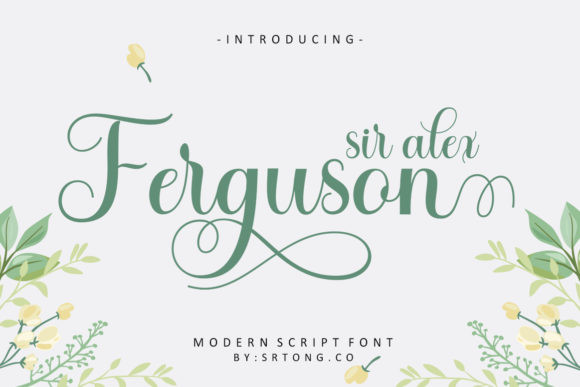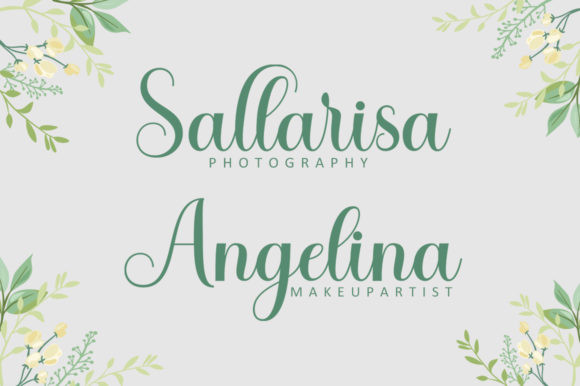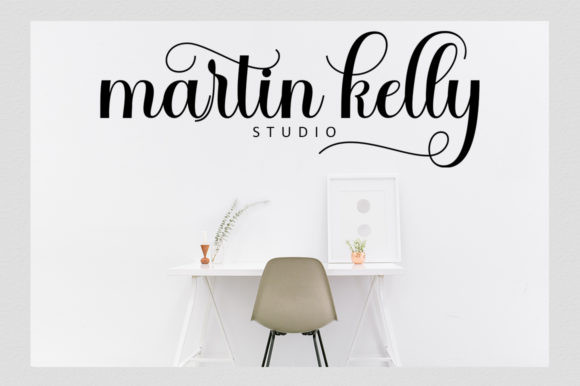
Sir Alex Ferguson Font
Sir Alex Ferguson FontSir Alex Ferguson is a ravishing script font. This adaptable font has a wide spectrum of applications ranging from greeting cards to headlines and is guaranteed to add a romantic feel to your next project.